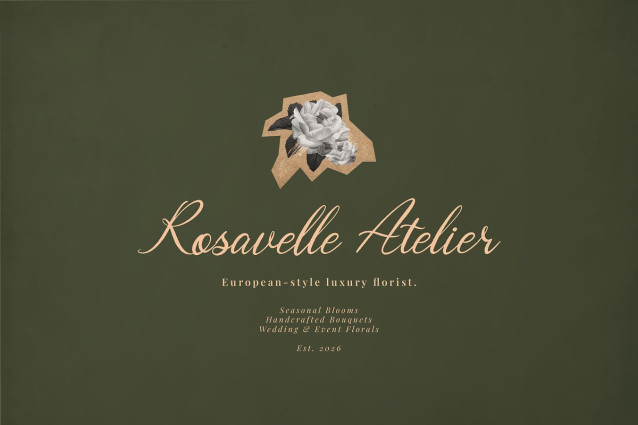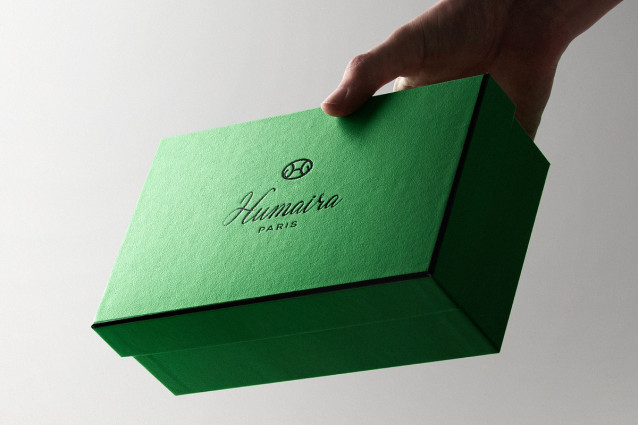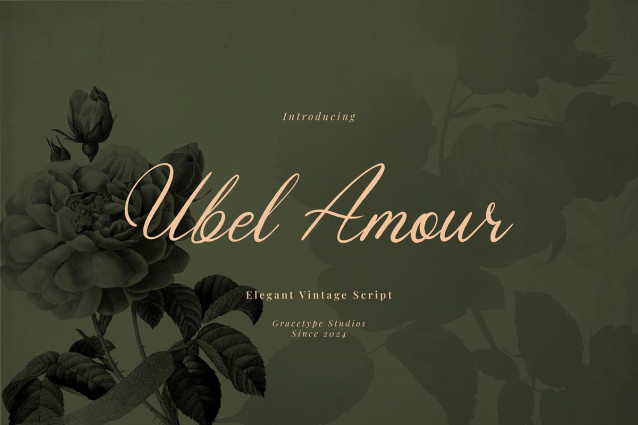
Ubel Amour Handwritten Font
Ubel Amour Handwritten Font | Elegant Vintage Script, from Gracetypestudio, suitable for any projects such as: logos, branding projects, homeware designs, product packaging, mugs, quotes, posters, shopping bags, t-shirts, book covers, name card, invitation cards, greeting cards, label, photography, watermark, special events, and all your other lovely projects that need a Script taste.